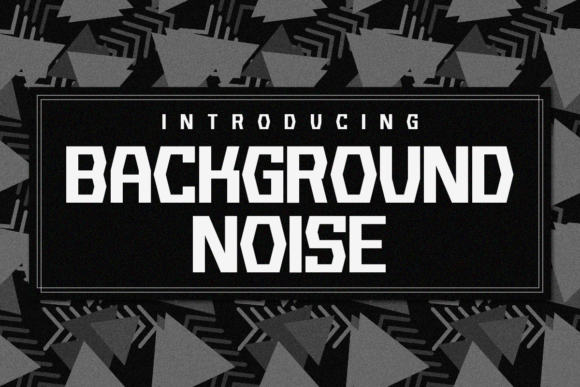
Introducing Background Noise Font: Elevate Your Designs with a Striking Typeface
Are you tired of using the same old fonts in your designs? Look no further than Background Noise Font, a beautiful typeface that can add a touch of uniqueness to any project. In this article, we’ll dive into the world of Background Noise Font and explore its features, benefits, and uses.
What is Background Noise Font?
Background Noise Font is a stunning typeface designed to make your designs stand out. Its distinctive style and aesthetic make it perfect for projects that require a bold and eye-catching font. Whether you’re a designer, craftsperson, or DIY enthusiast, Background Noise Font is an excellent choice for adding a creative touch to your work.
Key Features of Background Noise Font
- Unique Design: Background Noise Font boasts a one-of-a-kind design that will set your projects apart from the rest.
- Versatility: This font can be used for a wide range of designs, from posters and flyers to logos and branding materials.
- High-Quality: This font is designed with high-quality craftsmanship, ensuring that it looks great in any design.
Benefits of Using Background Noise Font
So, why should you choose Background Noise Font for your designs? Here are just a few benefits of using this amazing typeface:
- Adds Visual Interest: Background Noise Font adds a touch of visual interest to any design, making it more engaging and attention-grabbing.
- Enhances Creativity: With its unique design, Background Noise Font can inspire creativity and help you think outside the box.
- Perfect for Branding: This font is ideal for branding projects, as it can help create a memorable and distinctive visual identity.
Uses of Background Noise Font
Background Noise Font is an incredibly versatile typeface that can be used in a variety of design projects. Here are some ideas to get you started:
- Posters and Flyers: Use Background Noise Font to create eye-catching posters and flyers that grab attention.
- Logos and Branding: This font is perfect for creating unique logos and branding materials that stand out.
- Social Media Graphics: Add a touch of personality to your social media graphics with Background Noise Font.
- Packaging Design: Use this font to create eye-catching packaging designs that showcase your product.
Tips for Using Background Noise Font
To get the most out of Background Noise Font, here are some tips to keep in mind:
- Experiment with Colors: Try pairing Background Noise Font with different colors to create a unique visual effect.
- Play with Sizes: Experiment with different font sizes to add visual interest to your design.
- Combine with Other Fonts: Try pairing Background Noise Font with other fonts to create a distinctive and visually appealing combination.
| Font Name | Background Noise Font |
| Author | Chequered Ink |
In conclusion, Background Noise Font is a beautiful typeface that can elevate your designs and add a touch of uniqueness. With its distinctive style, versatility, and ease of use, this font is perfect for designers, craftspersons, and DIY enthusiasts. Whether you’re looking to create eye-catching posters, unique logos, or memorable branding materials, Background Noise Font is an excellent choice.